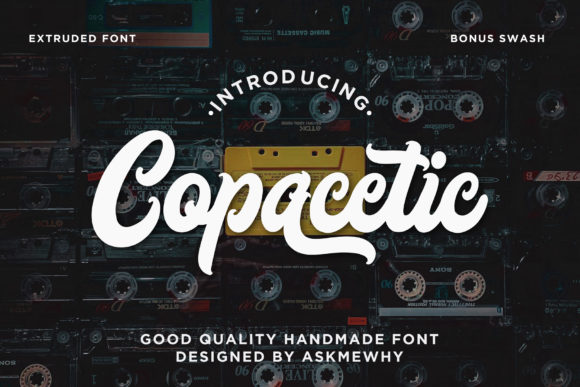
Copacetic Font
Unleash the captivating charm of Copacetic, a script font brimming with authenticity and charisma. Dive into the world of elegant penmanship, where each stroke exudes a touch of handwritten grace. Let Copacetic ignite your imagination and transform your creative visions into tangible masterpieces.
At the heart of this font lies its unwavering spirit, reflecting the essence of unwavering optimism and contentment. Its smooth, flowing curves invite you to embrace the joys of life, adding a whimsical flair to your designs that will leave a lasting impression.
Copacetic is the perfect companion for projects seeking a touch of heartfelt authenticity. Its versatility knows no bounds, effortlessly adapting to a myriad of creative endeavors, from heartfelt letters to eye-catching branding. Whether you're a seasoned designer or just starting your journey into the realm of typography, Copacetic will guide you with its effortless elegance and undeniable charm.
Join the growing legion of creatives who have embraced the power of Copacetic. Let its graceful lines dance across your designs, infusing them with a captivating blend of authenticity and charm. Experience the magic of Copacetic today and unlock a world of creative possibilities.